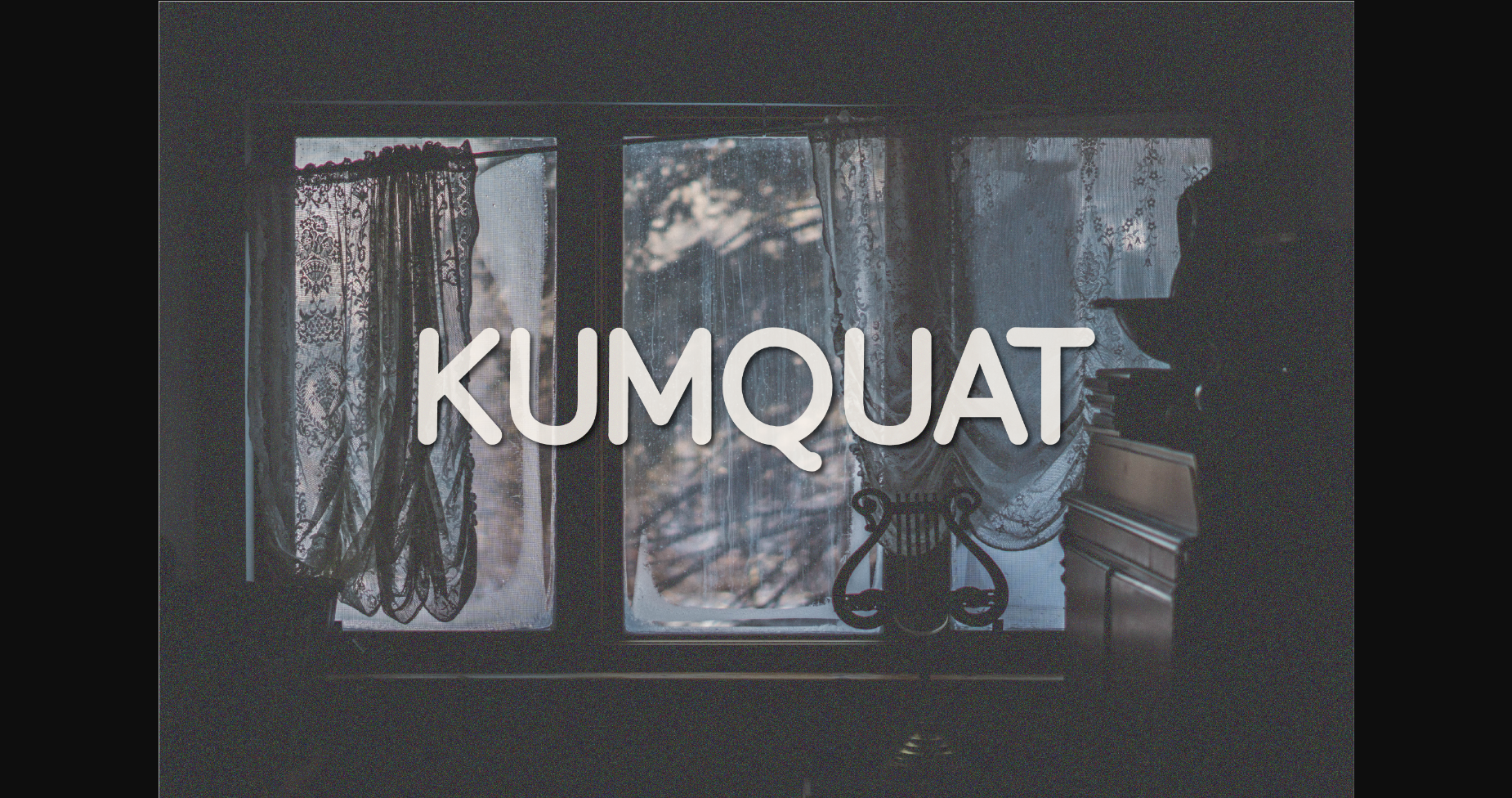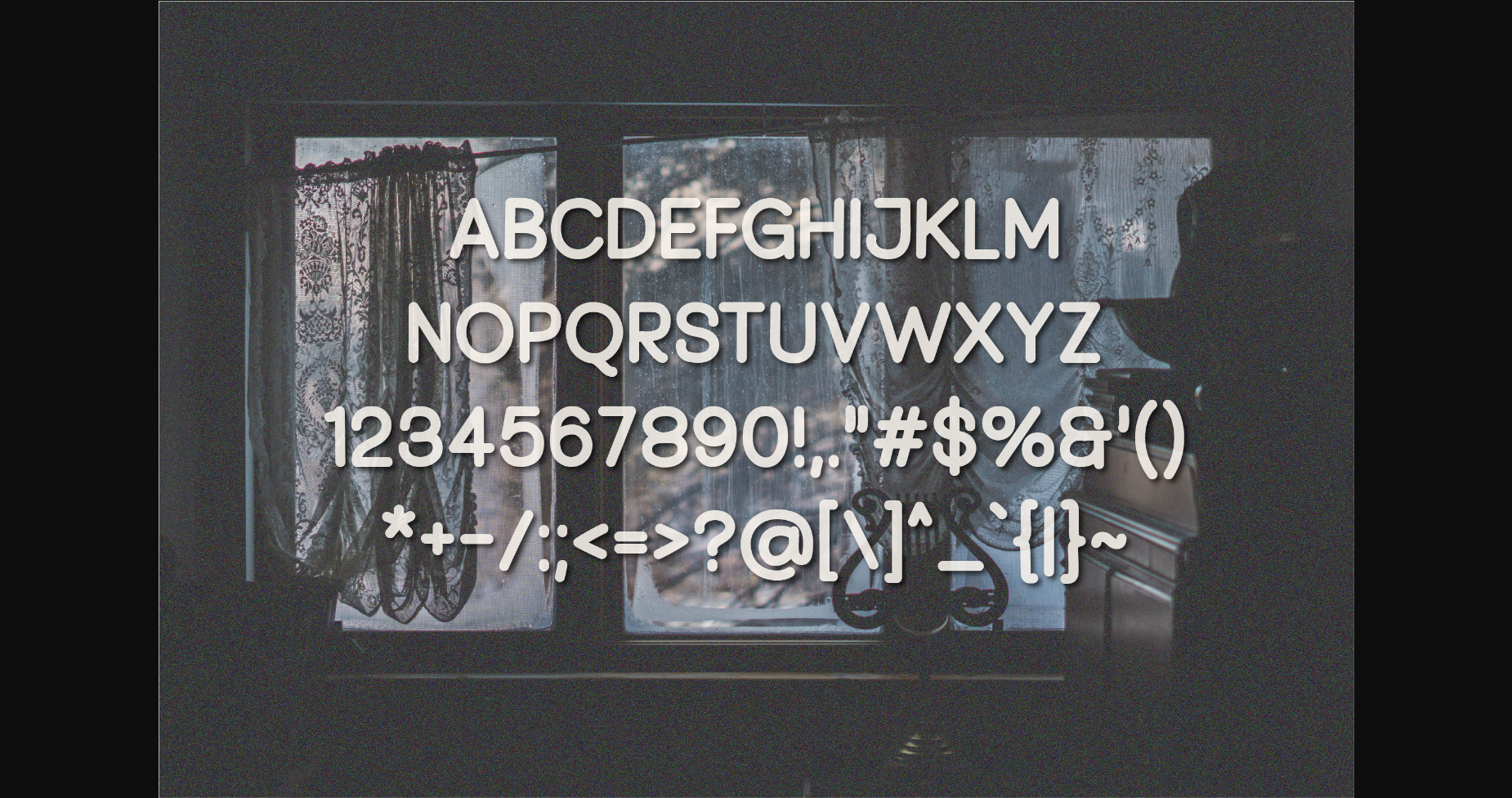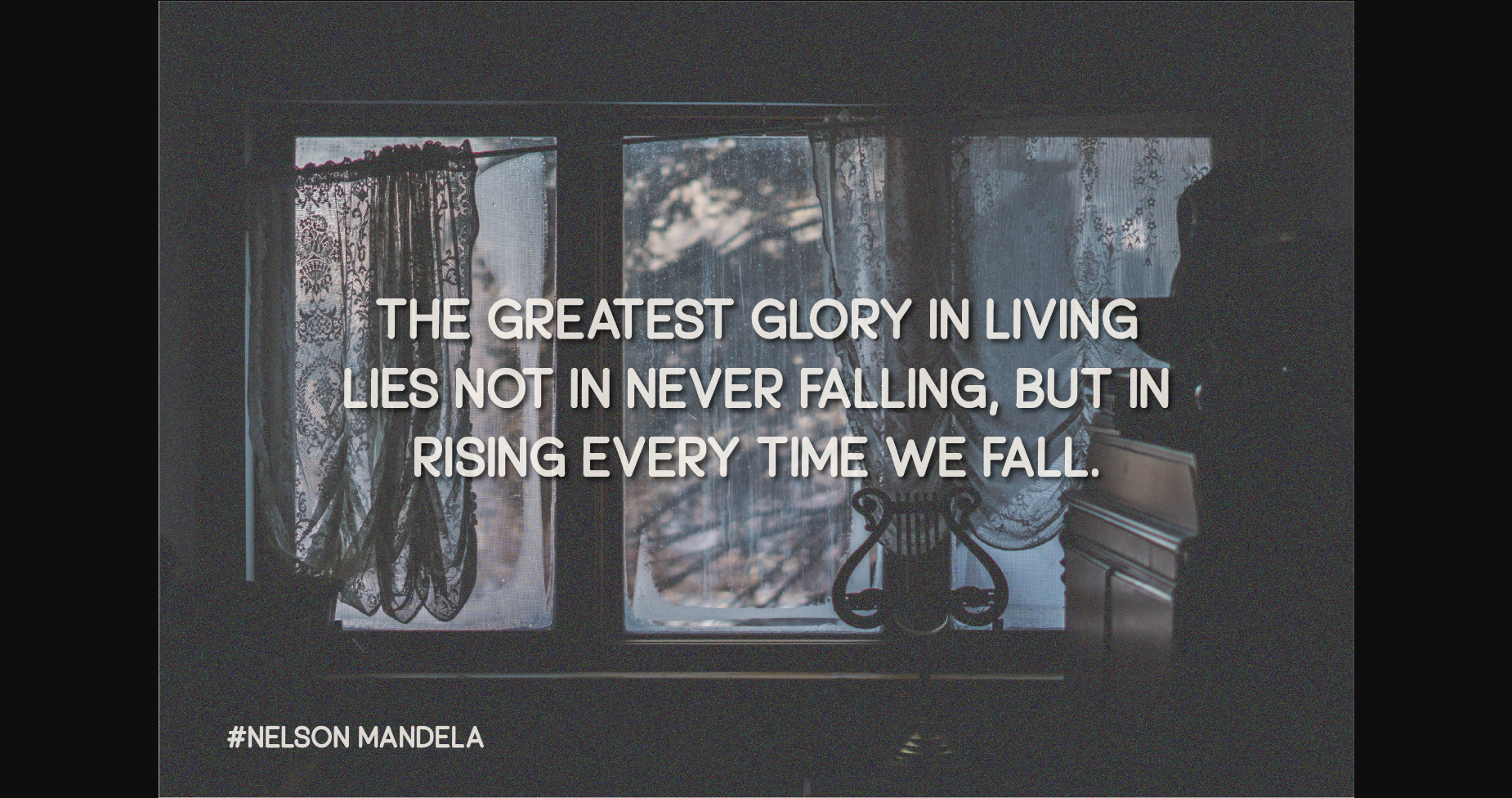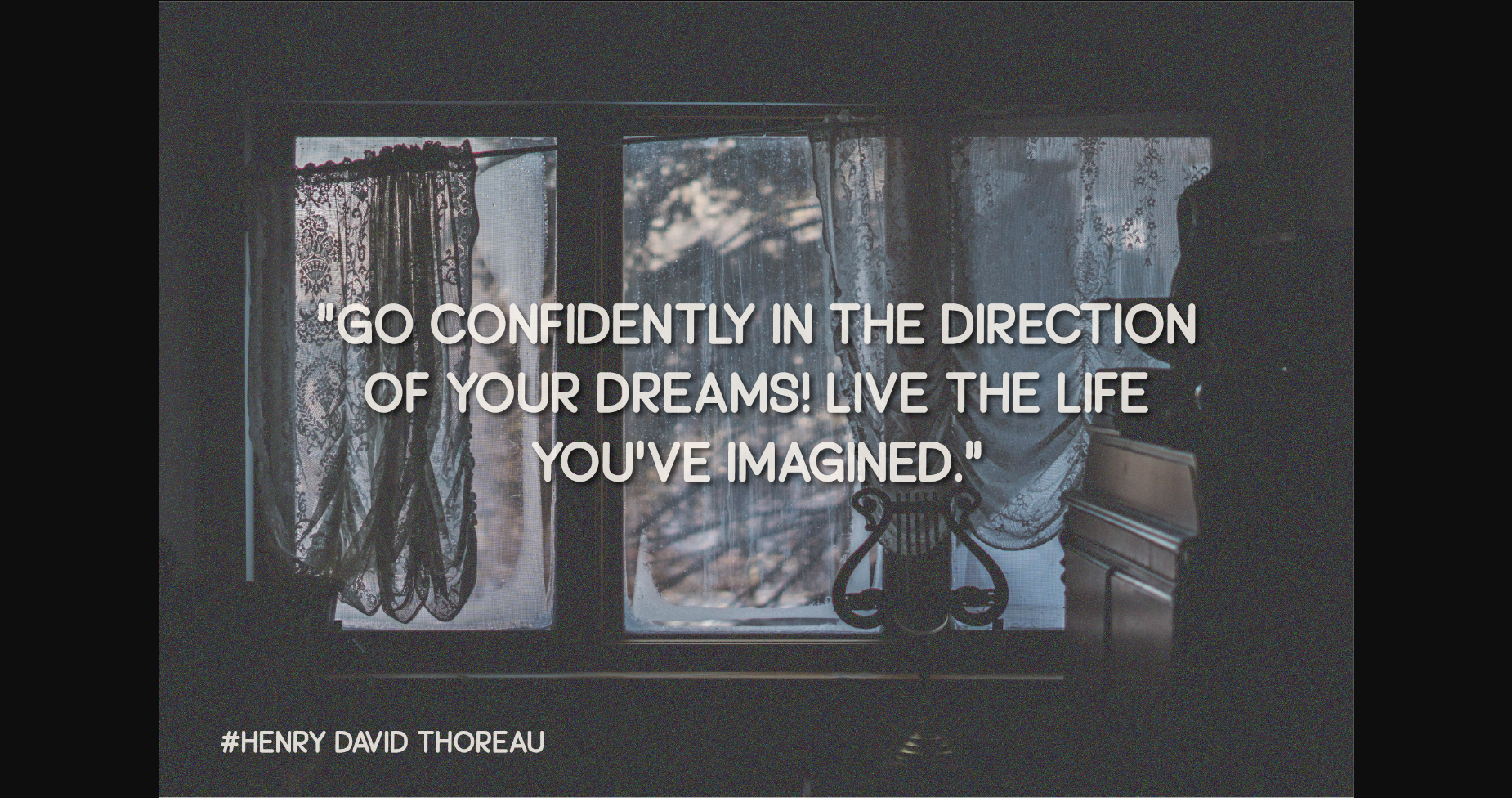
About Kumquat Font
Kumquat is a quirky all-caps font made up of capital letters. This font is perfect for social media or crafty projects. Simple and smooth perfect for crafting, t-shirts, decals, cards, invitations and so much more.